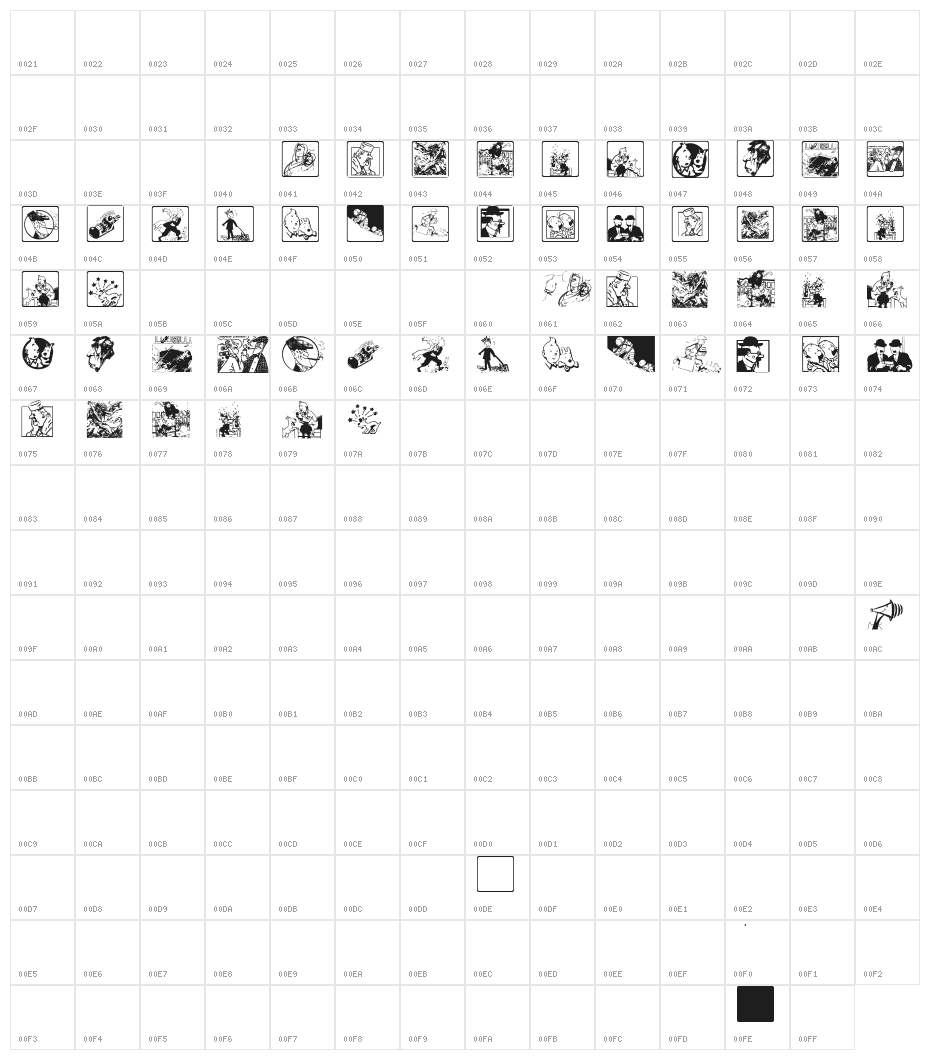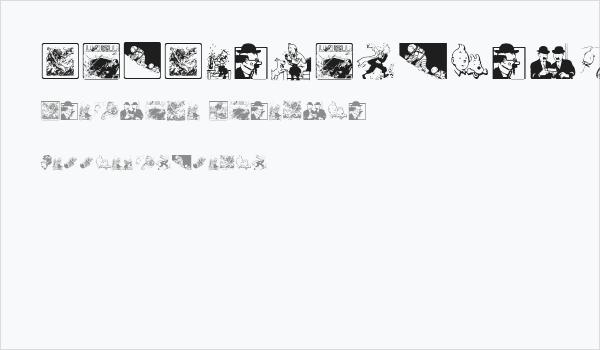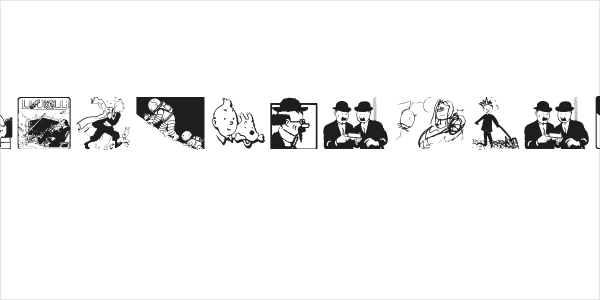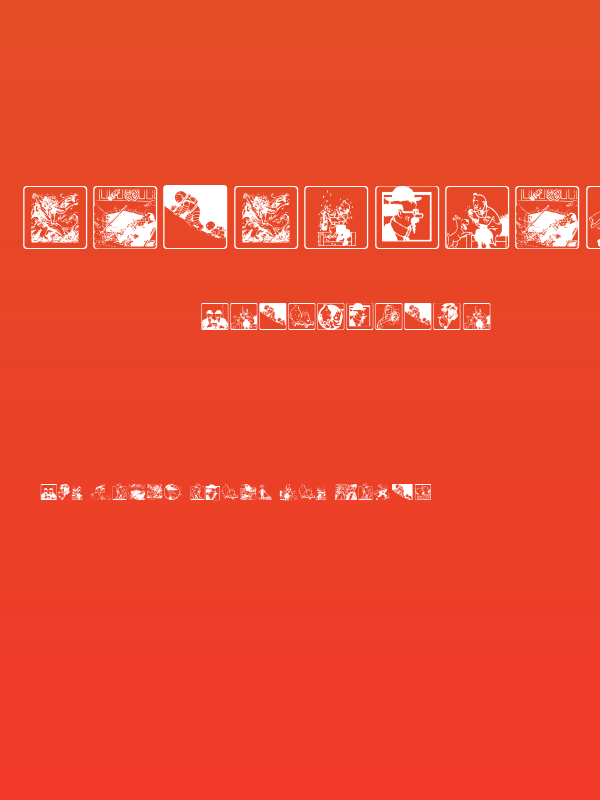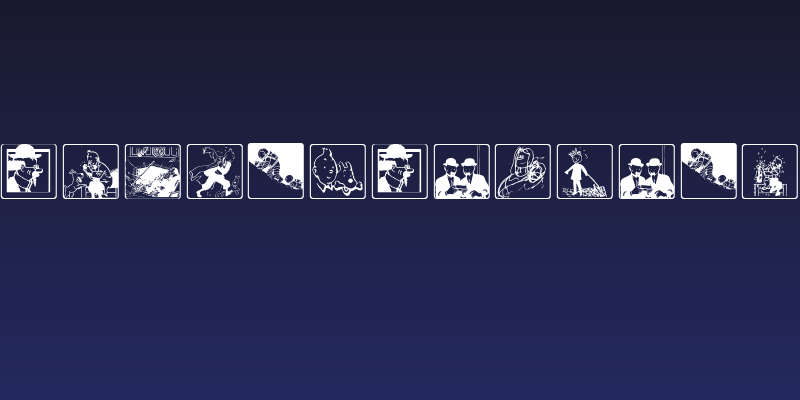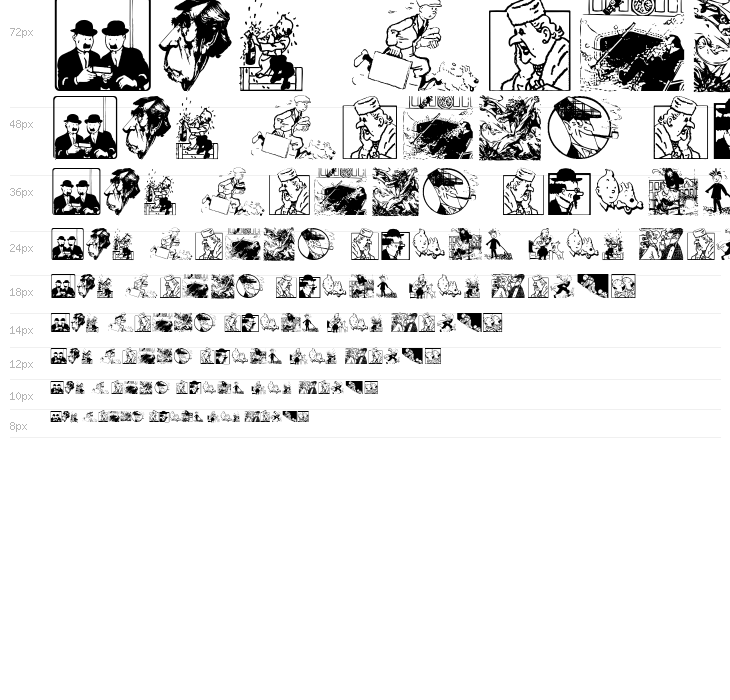
VIPVeryImportantPersons Font
| 使用场景 | Artistic projects, decorative elements, themed designs. |
| 推荐项目 | Ideal for use in graphic novels, comic strips, themed posters, or artistic projects requiring a vintage comic aesthetic. |